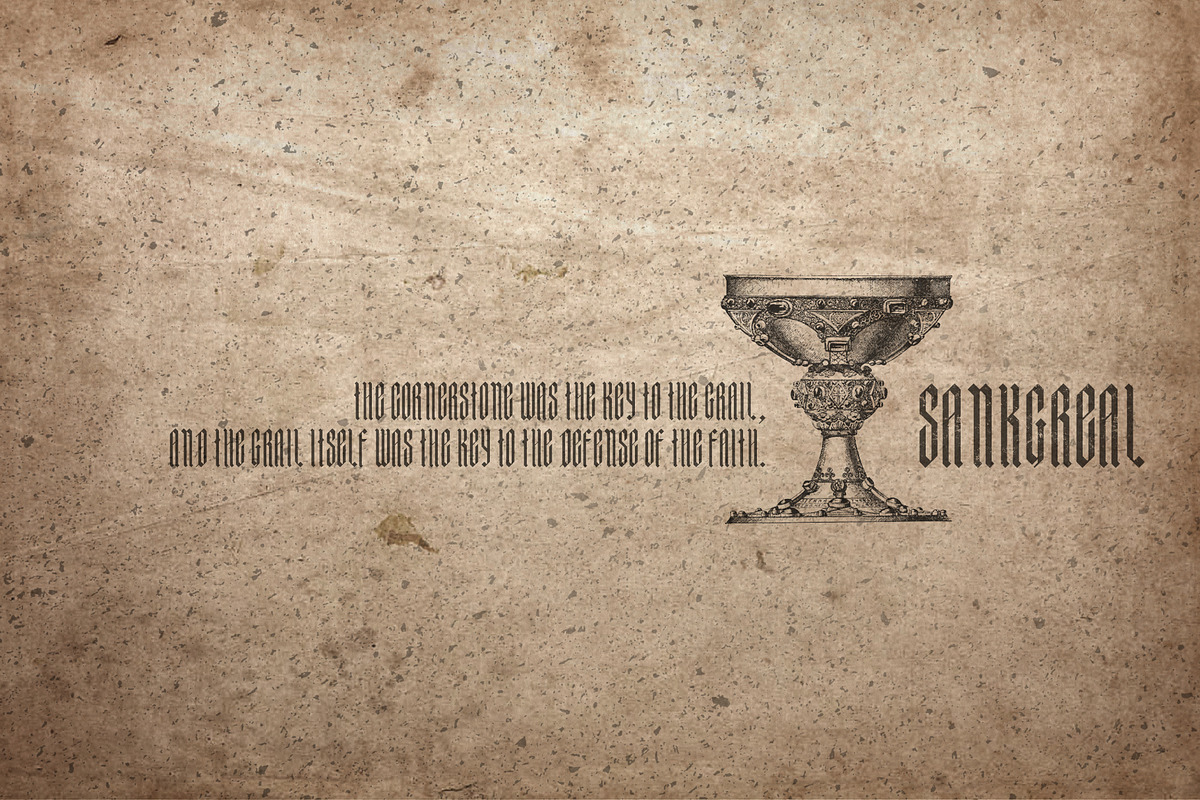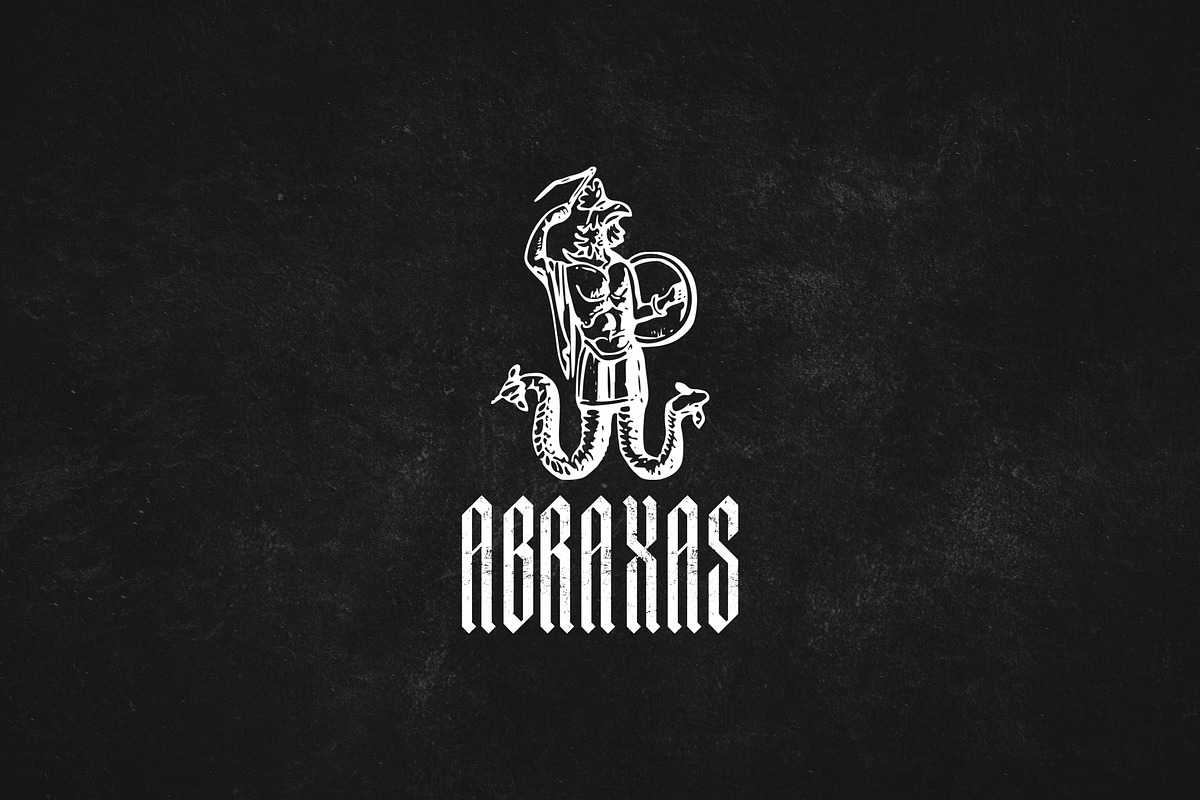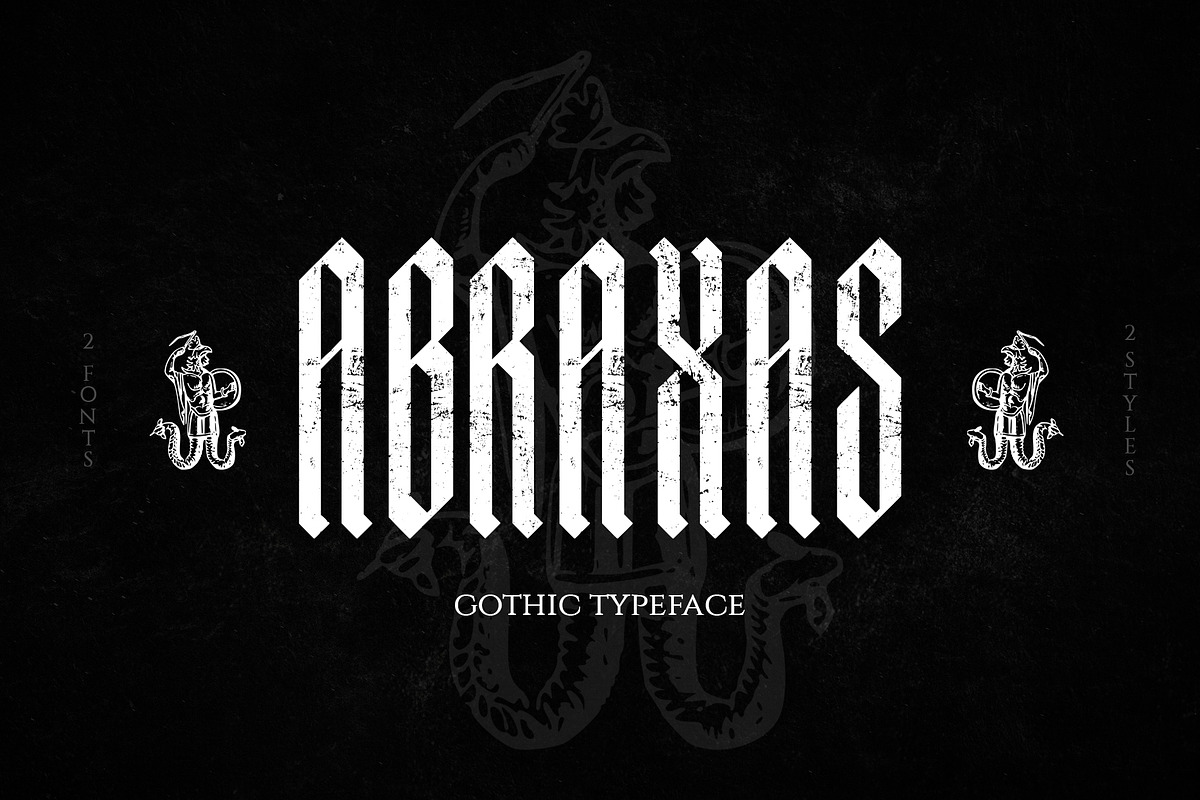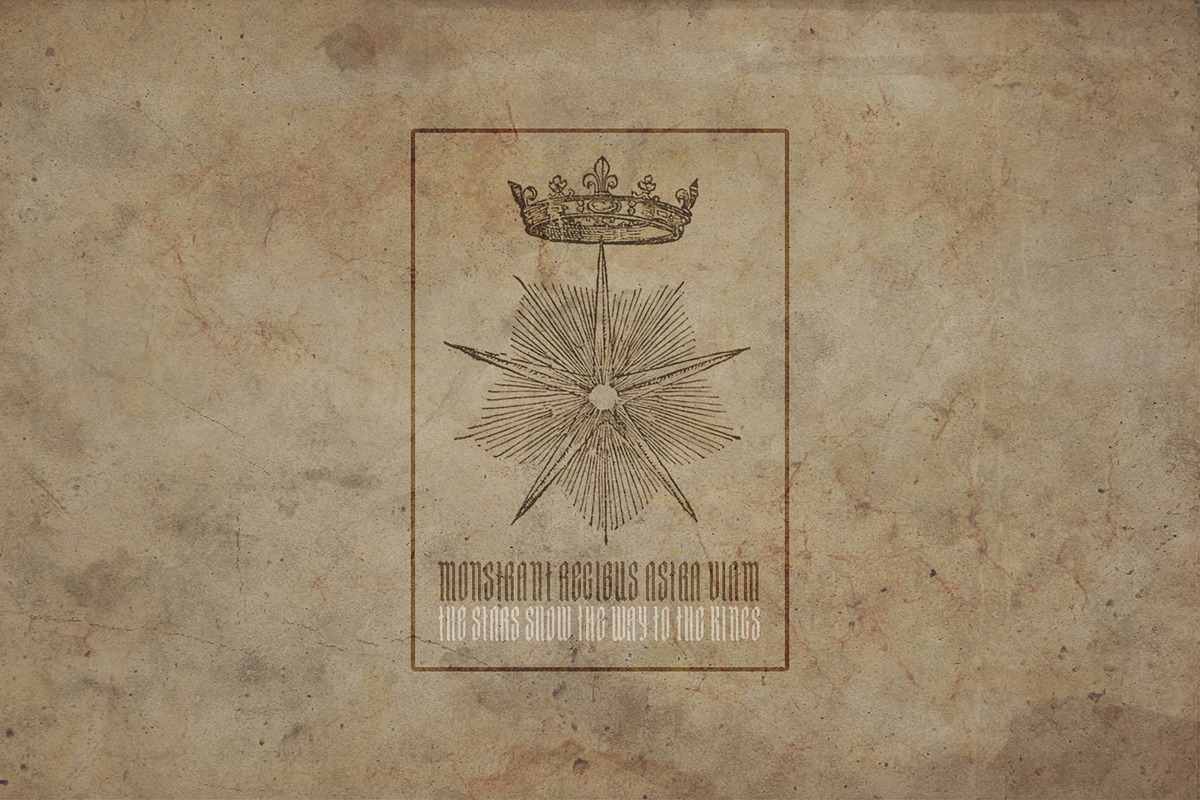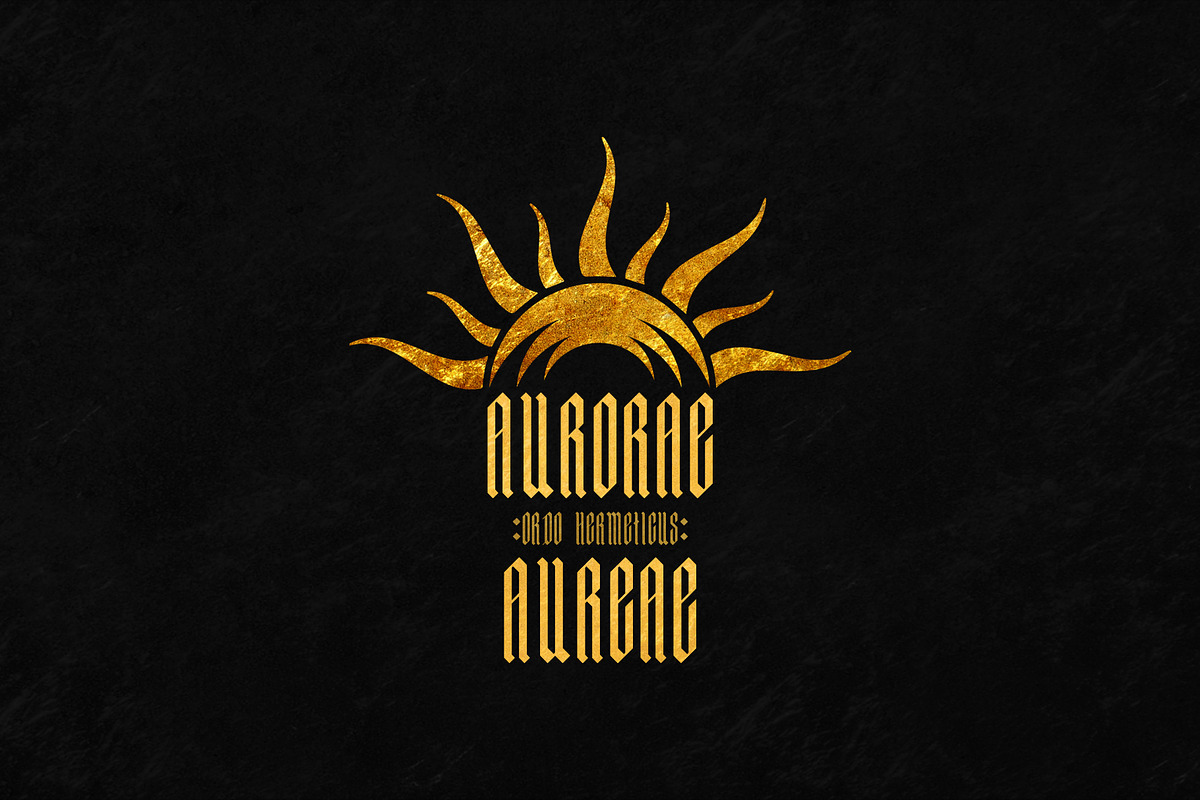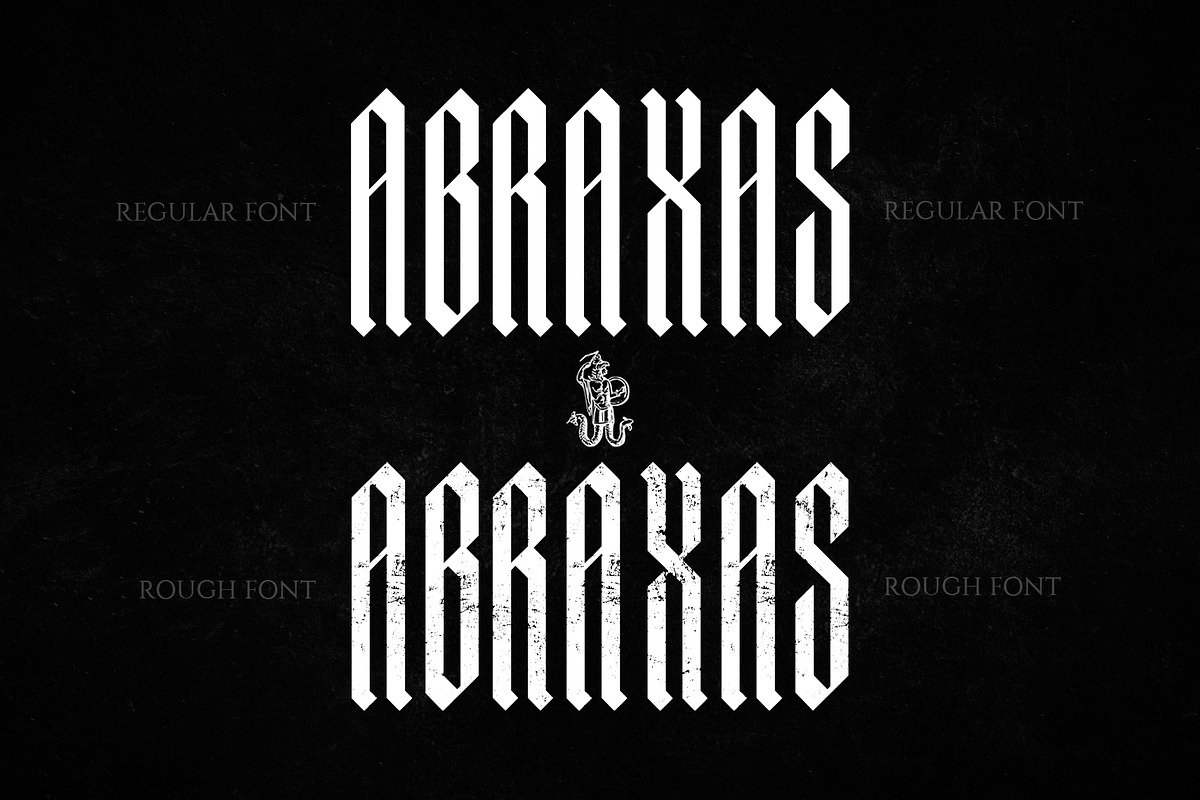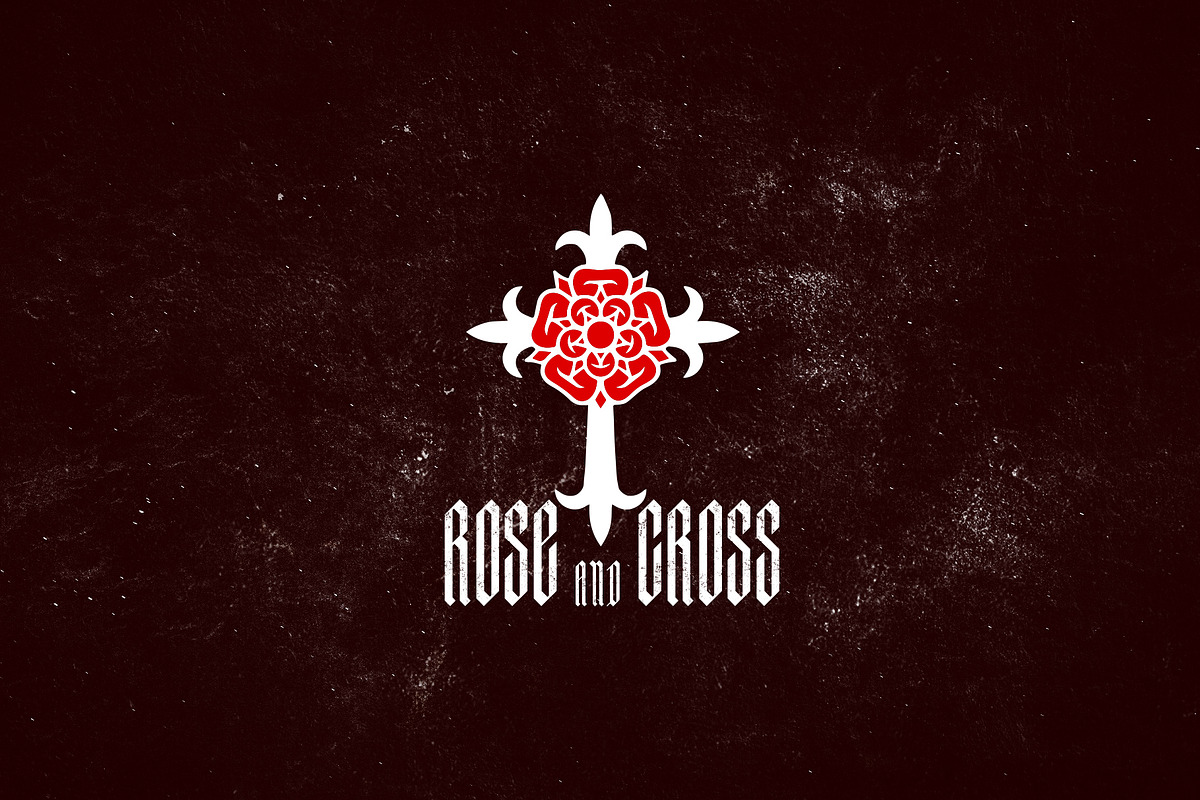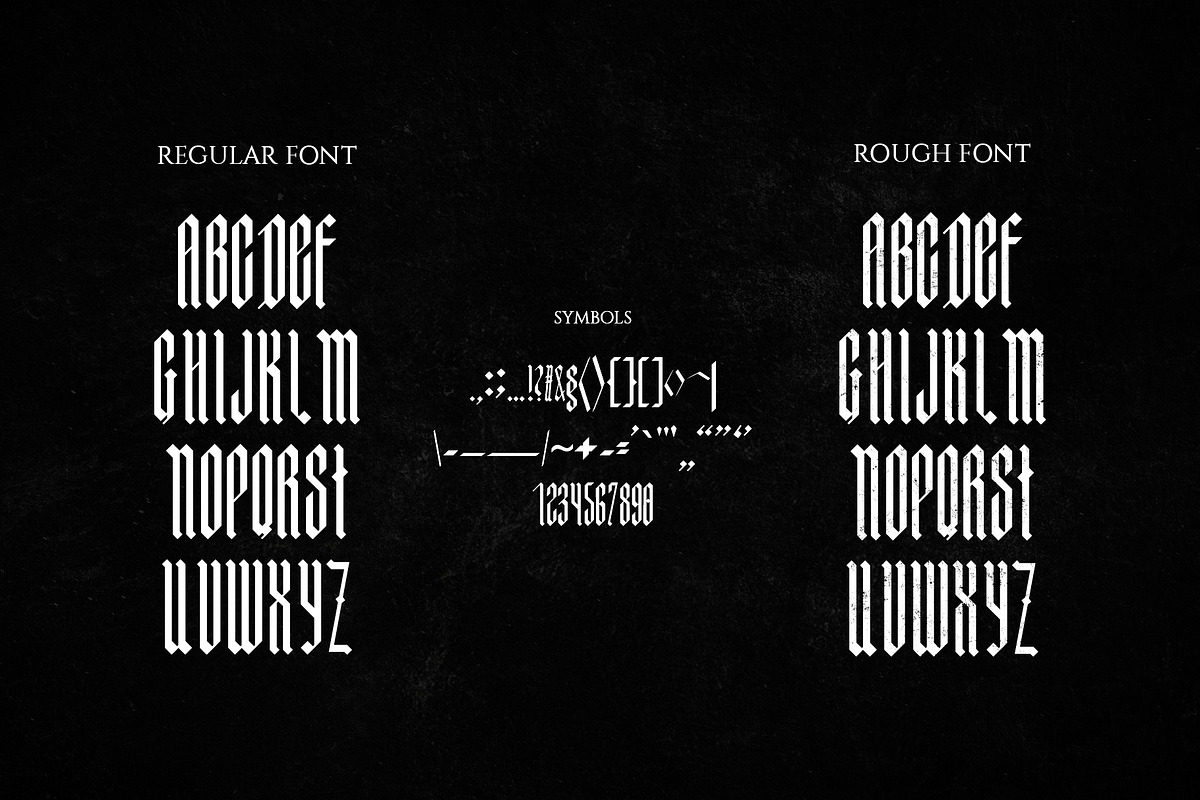
ABRAXAS | Gothic Typeface
ABRAXAS - is a gothic font family with two distinct styles.
It includes uppercase (uppercase and lowercase same size) letters, numbers and punctuation.